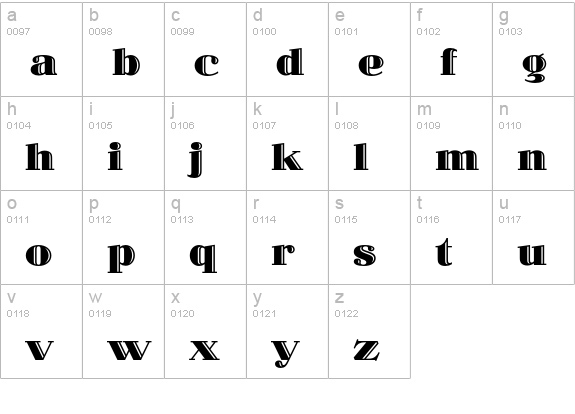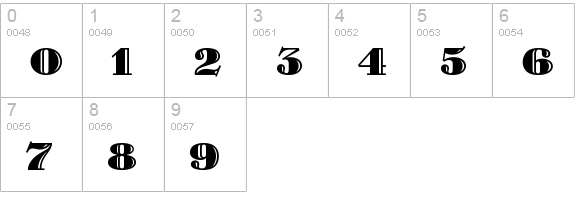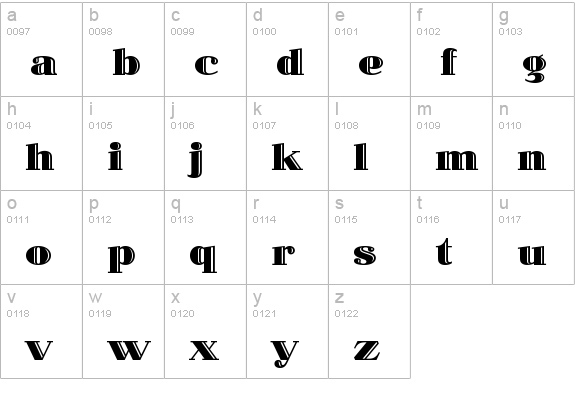
Spotlight Std Font Details
Spotlight Std is a stunning and versatile typeface that is sure to grab attention and illuminate any design project. With its sleek and modern look, this font exudes a sense of sophistication and professionalism. Whether you're creating a logo, a magazine layout, or a website design, Spotlight Std will effortlessly add a touch of elegance and style. What sets Spotlight Std apart is not only its aesthetic appeal, but also the fact that it is available for free. That's right, this amazing font can be downloaded at no cost from FontsMarket.com. This means that you can enhance your creative endeavors without breaking the bank. The clean lines and well-defined curves of Spotlight Std make it highly legible and easy to read, ensuring that your message gets across effectively. Its versatility allows it to work seamlessly in various contexts, making it suitable for both headlines and body text. Whether you're designing for print or digital media, Spotlight Std will shine brightly and make a lasting impression. Its wide range of weights and styles provides ample options to experiment and create unique compositions. From bold and impactful to subtle and refined, this font has it all. Don't miss out on the opportunity to elevate your design projects with Spotlight Std. Download it for free today at FontsMarket.com and let your creativity take center stage.